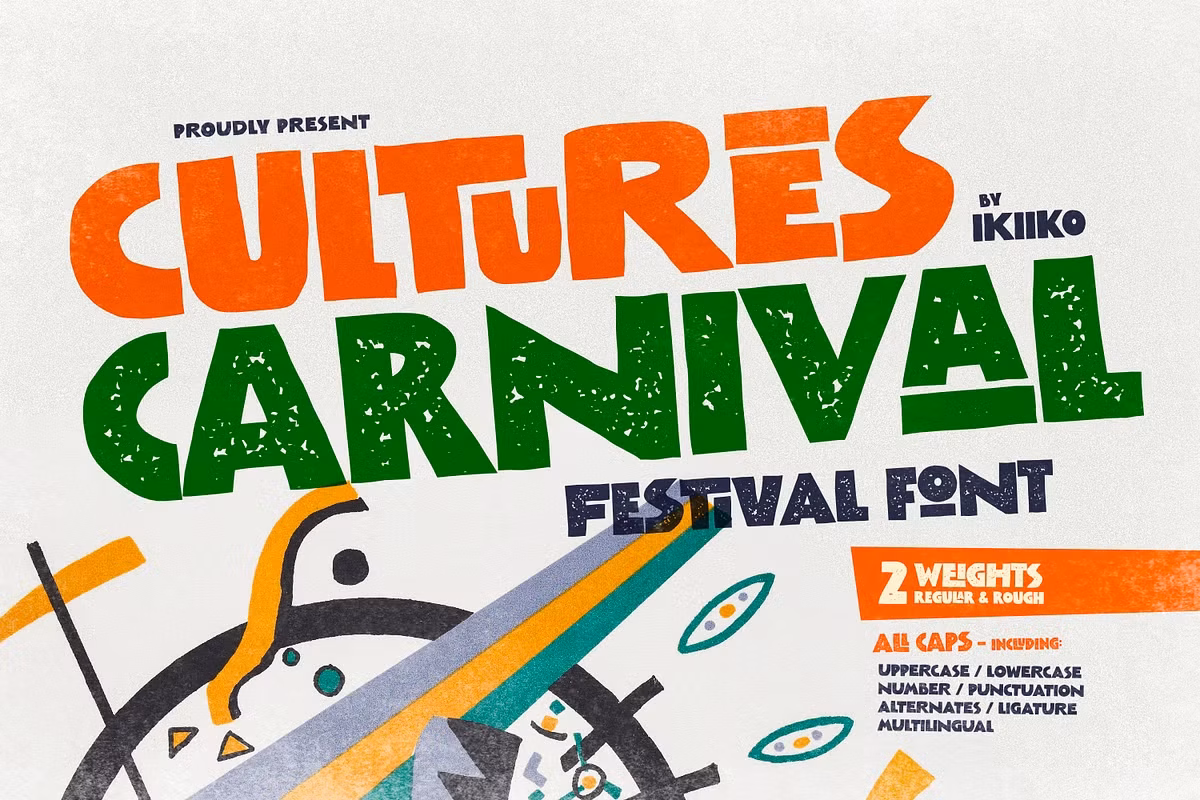
Cultures Carnival – Festival Font Free Download is a vibrant, festive typeface bursting with global rhythm and celebratory spirit. Inspired by cultural parades, street festivals, and lively music events, this font is perfect for posters, event branding, social media graphics, and anything that needs a joyful, multicultural flair.
Its bold strokes and decorative elements reflect the energy of dance, music, and colorful tradition. Whether you're designing for a cultural fair, food festival, or summer event, Cultures Carnival adds movement and excitement to your visuals.